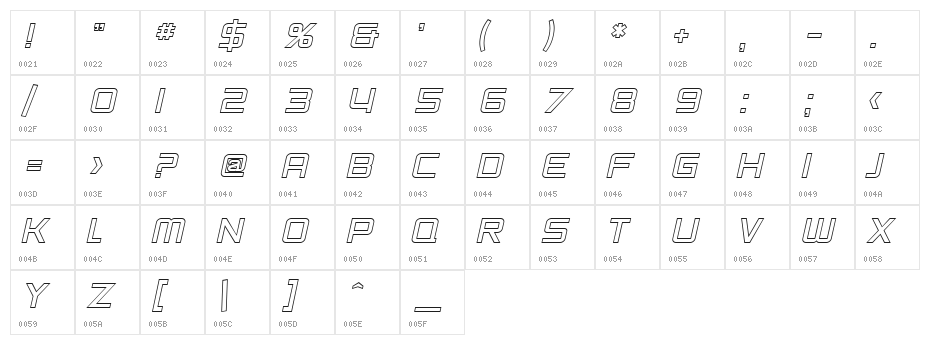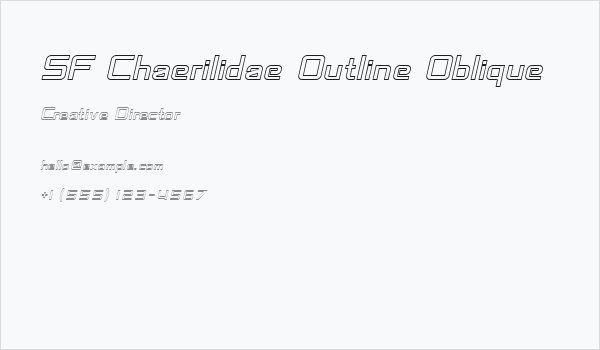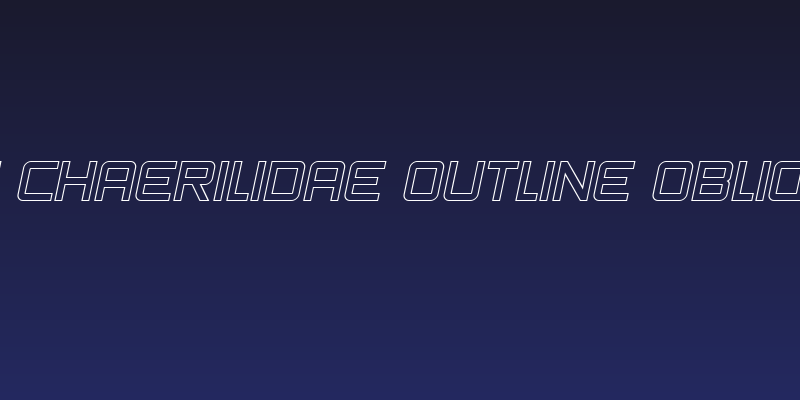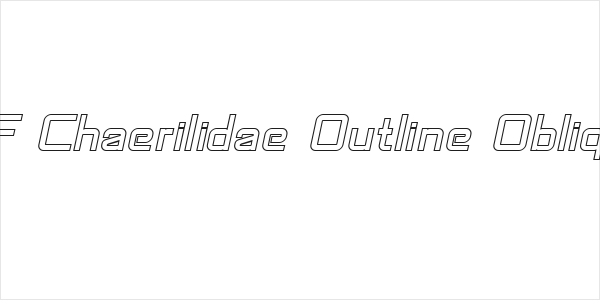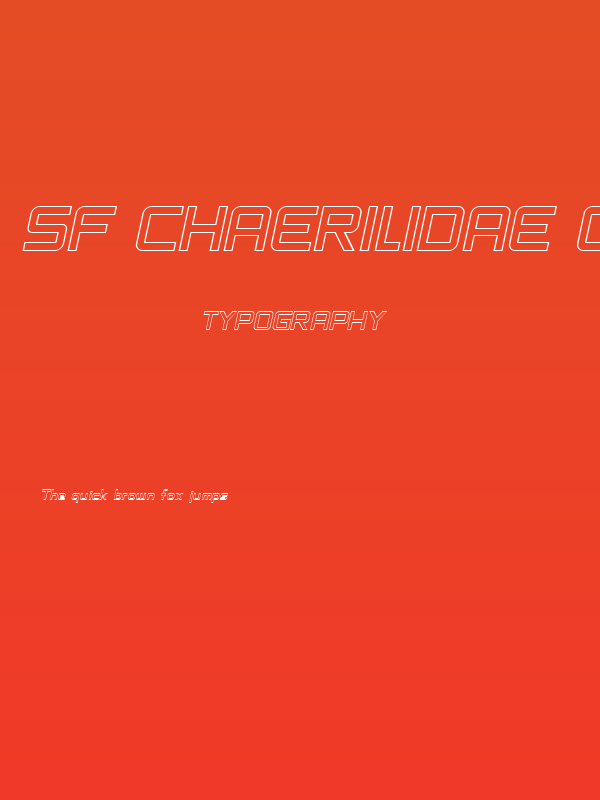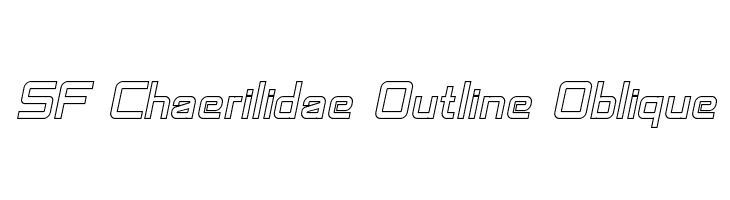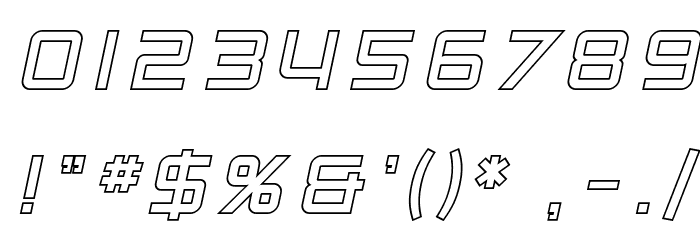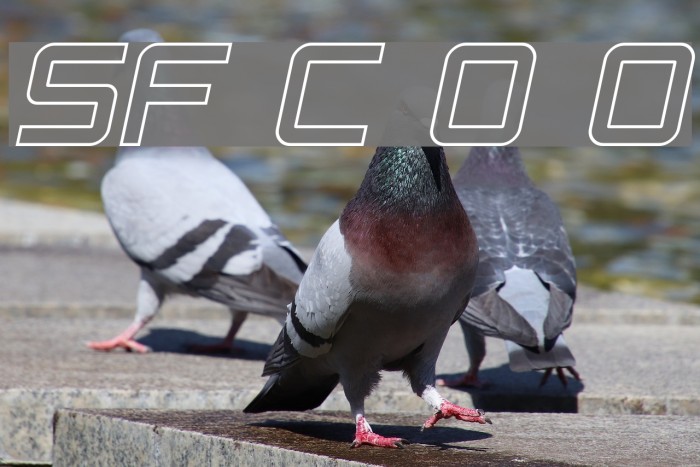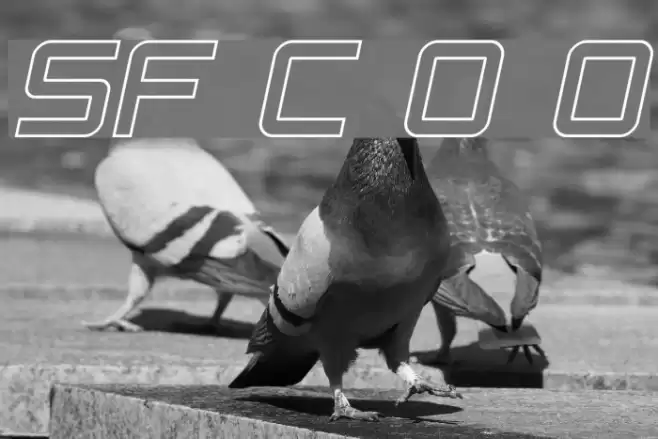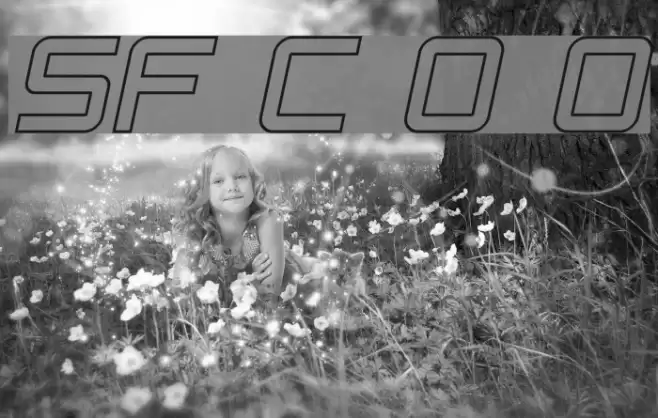
SF Chaerilidae Outline Oblique Font
SF Chaerilidae Outline Oblique Description
This font features a modern, geometric outline style with an oblique slant, giving it a dynamic and futuristic appearance. The characters are constructed with clean, precise lines that form a hollow interior, emphasizing the outline. The uppercase and lowercase letters maintain a consistent height, while the numerals and special characters are designed to match the overall aesthetic. This font's unique style makes it suitable for eye-catching designs where a sense of motion and modernity is desired.
| Proposed Projects | Ideal for futuristic branding, tech-related designs, posters, and digital artwork. |